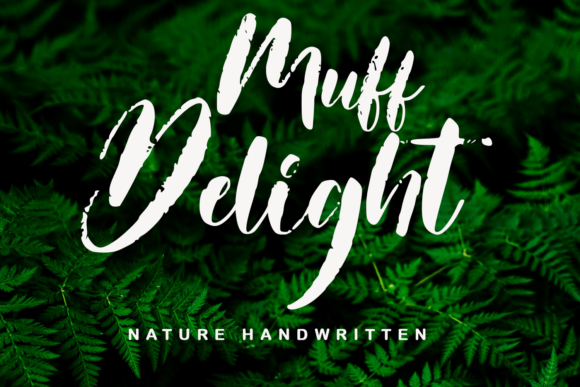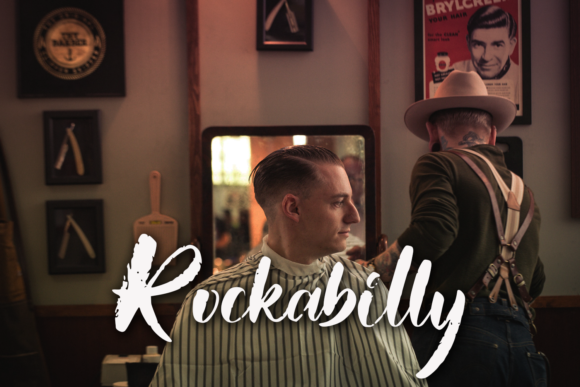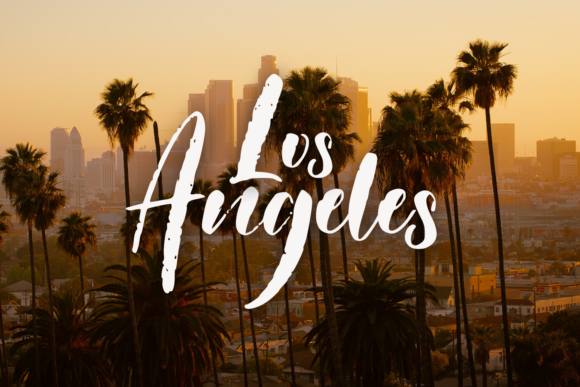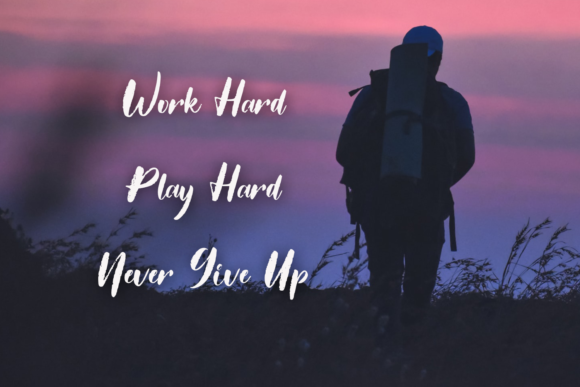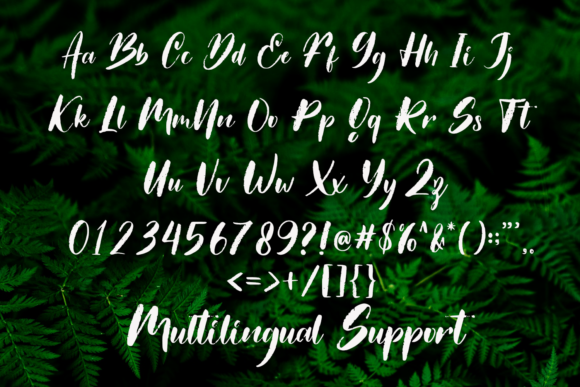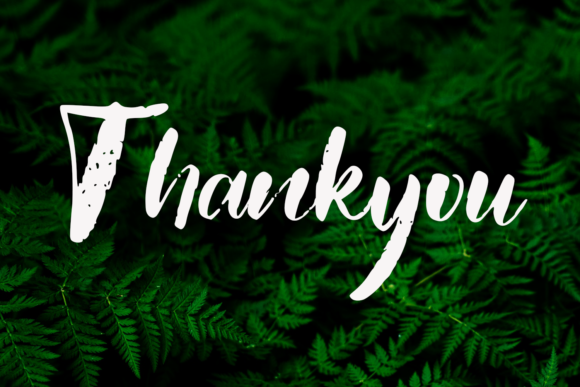
About Muff Delight Font
Muff Delight is a stylish and contemporary script font that exudes a unique and striking look, capable of making any design stand out. With its modern appeal, this font brings a fresh and distinctive touch to your creative projects. Notably, Muff Delight is PUA encoded, ensuring easy access to all its glyphs and swashes for a seamless and customizable design experience.
The font’s stylish and modern script design sets it apart, providing a visually appealing and trendy aesthetic. Muff Delight serves as a versatile choice that can add a touch of sophistication to a variety of design applications, making it suitable for projects where a unique and striking appearance is desired.
The PUA encoding feature of Muff Delight enhances its user-friendly qualities, allowing designers to effortlessly explore and incorporate a wide range of glyphs and swashes. This functionality empowers creativity, enabling easy customization and personalization for a truly unique design.
Muff Delight’s unique thick-lettered dry brush display style adds a creative and cool dimension to any project. Its versatility is evident, making it a suitable choice for informal or casual design ideas where a touch of originality is desired.
Incorporating Muff Delight into your design toolkit opens up a realm of possibilities. Its stylish and modern script, combined with the unique thickness of the letters, makes it a font that stands out effortlessly. Whether applied to branding, headers, or casual design projects, Muff Delight adds a creative and cool flair that leaves a lasting impression.
In conclusion, Muff Delight is more than just a font; it’s a stylish and modern design asset that can elevate your creative projects. With its PUA encoding, this font ensures easy access to a variety of glyphs and swashes, facilitating a seamless and personalized design experience. Let Muff Delight bring a unique and striking presence to your designs, making them both creative and cool.